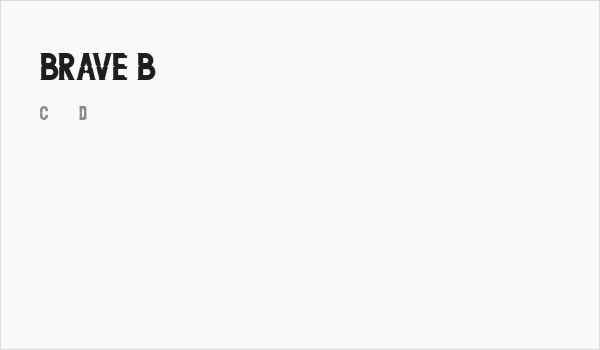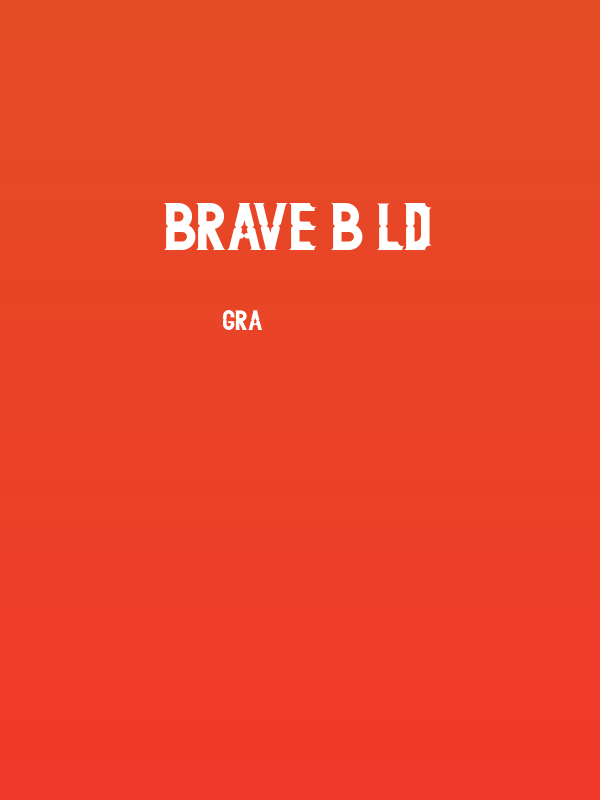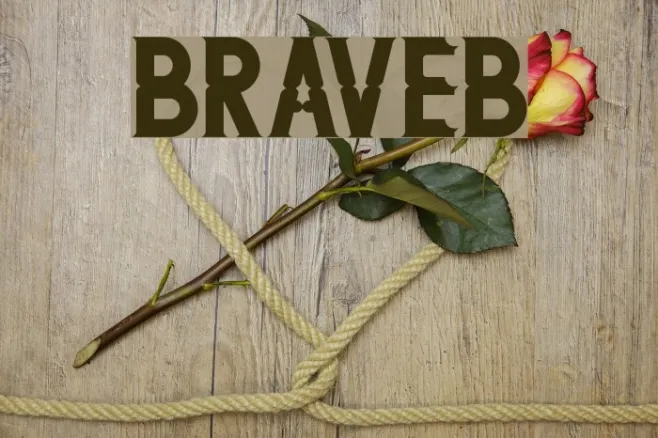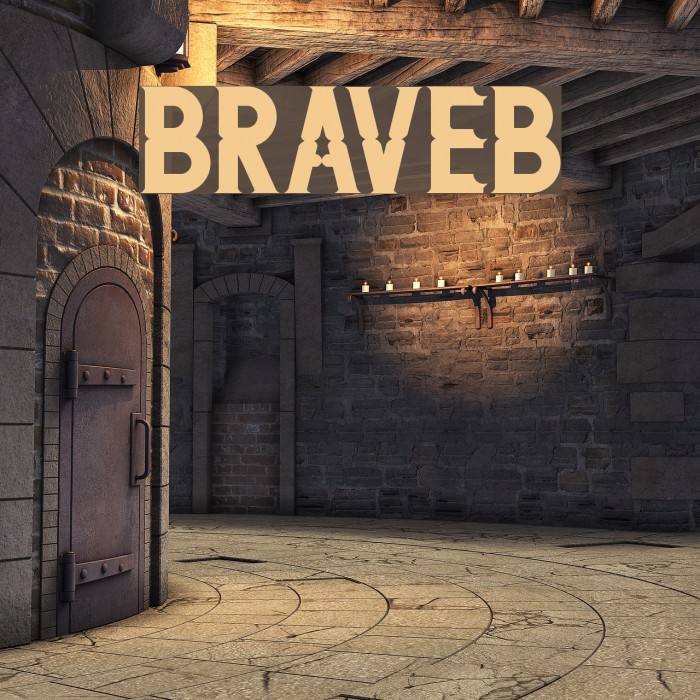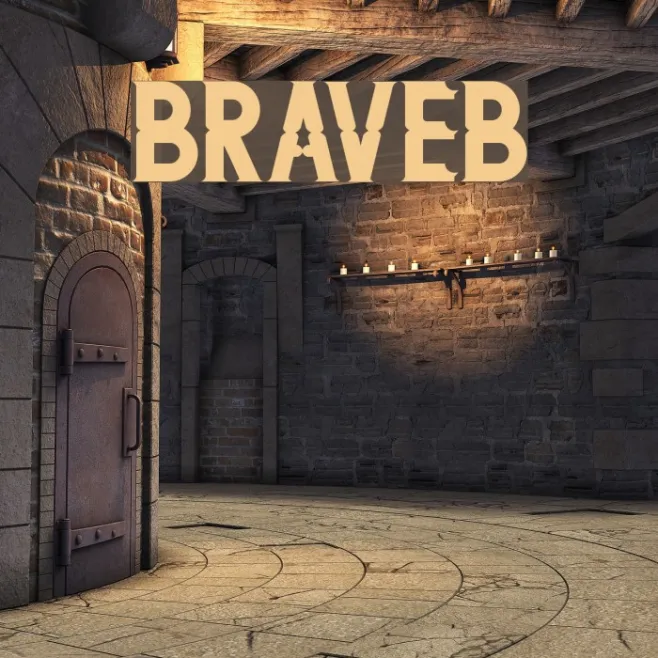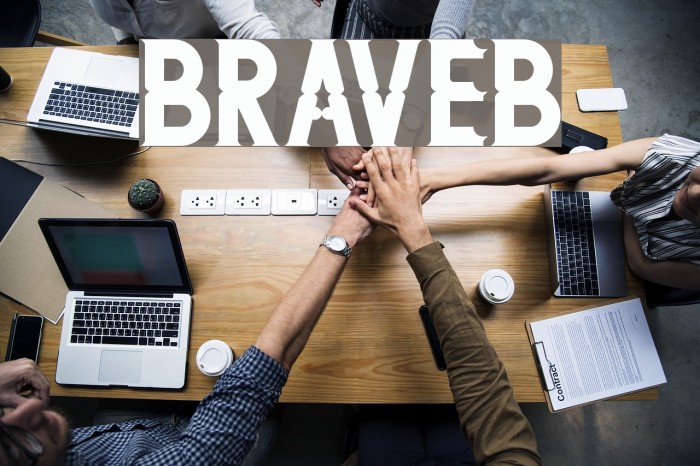
BRAVE-Bold Font
BRAVE-Bold Description
This font exhibits a bold and striking design, characterized by its thick, block-like letters with sharp, angular edges. The unique cutouts within each character add a distinctive flair, making it stand out as a decorative typeface. The uppercase letters are particularly prominent, with a strong presence that commands attention. The font's style is reminiscent of vintage poster typography, yet it maintains a modern edge through its geometric forms and clean lines. Its boldness and unique character shapes make it ideal for projects that require a strong visual impact.
| Proposed Projects | Ideal for posters, logos, headlines, and branding materials that require a bold statement. |